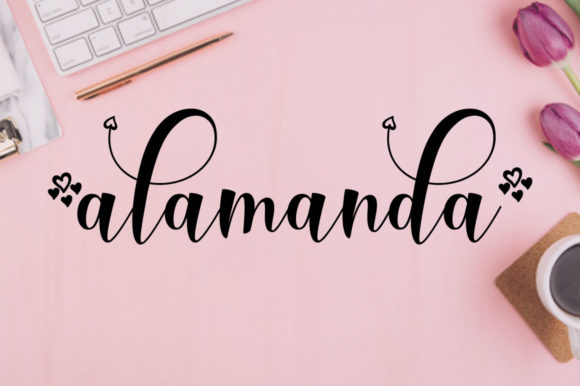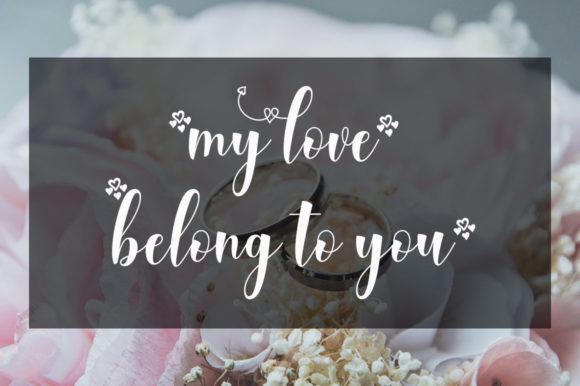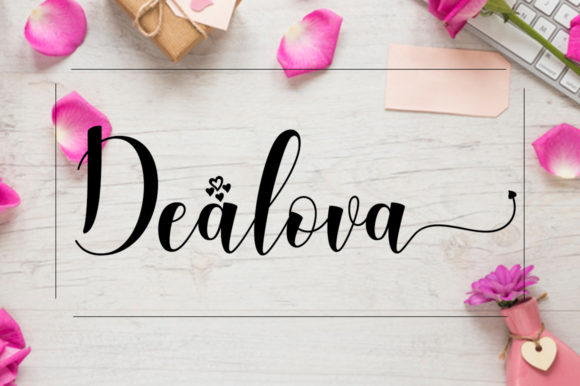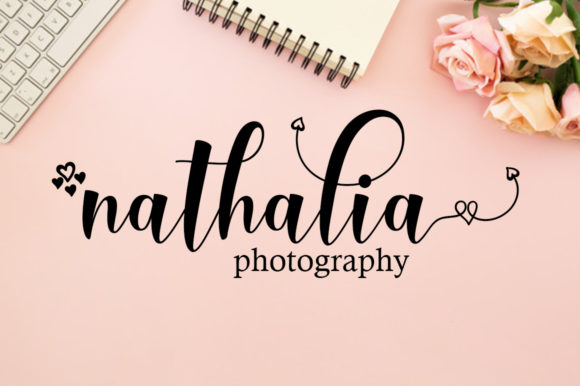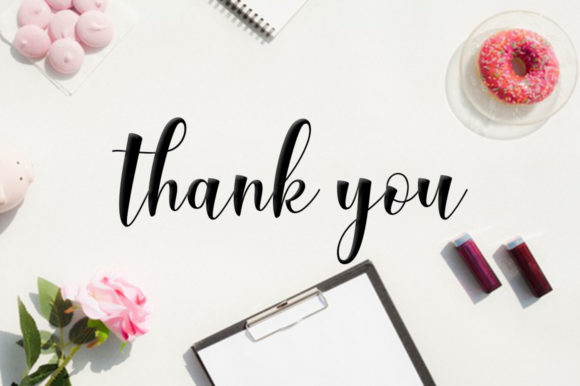
HomeScript FontsAngelove Font Script Fonts Angelove Font FacebookXPinterestWhatsApp Angelove Font Poster 2 Angelove Font Poster 3 Angelove Font Poster 4 Angelove Font Poster 5 Angelove Font Poster 6 Angelove Font Poster 7 About Angelove Font Angelove is a lovely and light handwritten font with a cool style. Get inspired by its charming feel! DOWNLOAD NOW People also explored Kwoto Extra Light Font Back Later Font Christmas Scarves Font Lancar Font Morlyn Font Mauna Loa Font Awely Shiny Font Mr. Roosevelt Font Wiloka Font 299 0 TagsAngelove Font Previous articleHello Autumn FontNext articleBeauty Gadish Font LEAVE A REPLY Cancel reply Comment: Please enter your comment! Name:* Please enter your name here Email:* You have entered an incorrect email address! Please enter your email address here Website: Save my name, email, and website in this browser for the next time I comment. Personal Use Free Baby Love Personal Use Free Read more about this font 1313 Mockingbird Lane Personal Use Free Read more about this font Equalizer Script Personal Use Free Read more about this font Happy Garden Personal Use Free Read more about this font BLOG How to Install and Use Fonts on Windows, macOS, and Web Projects How to Install and Use Fonts on Windows, macOS, and Web Projects Fonts are a crucial part of design and branding. Whether you’re designing a... Free Fonts Risk: Why Free Fonts Can Be Dangerous for Designers To increase your work productivity, choose the most readable fonts. 5 Fonts That Will Dominate Design Trends in 2026